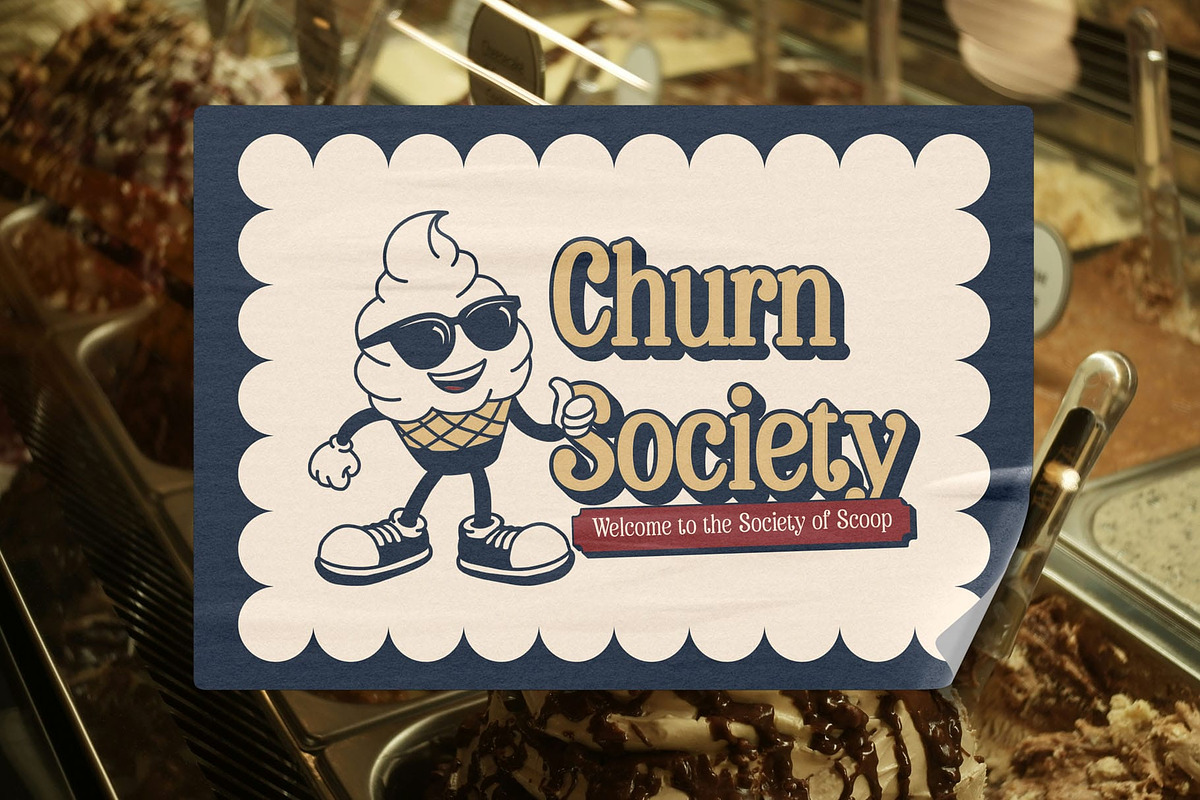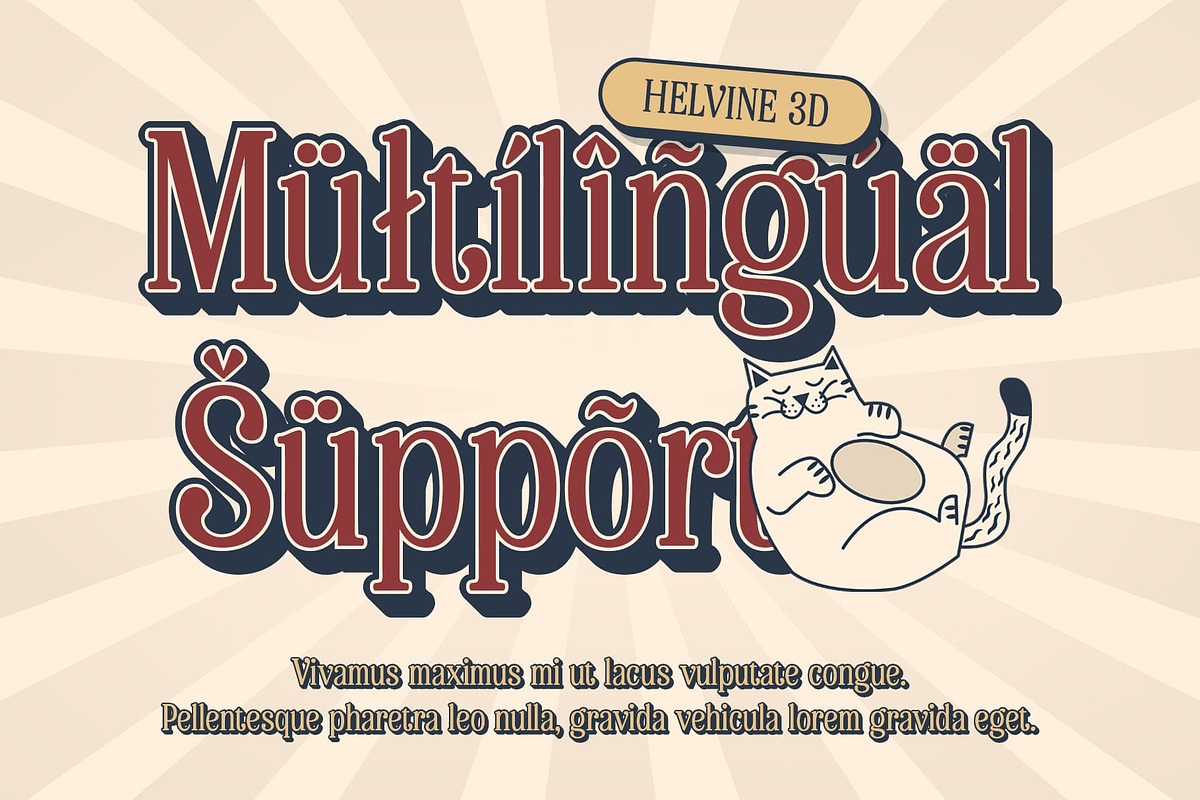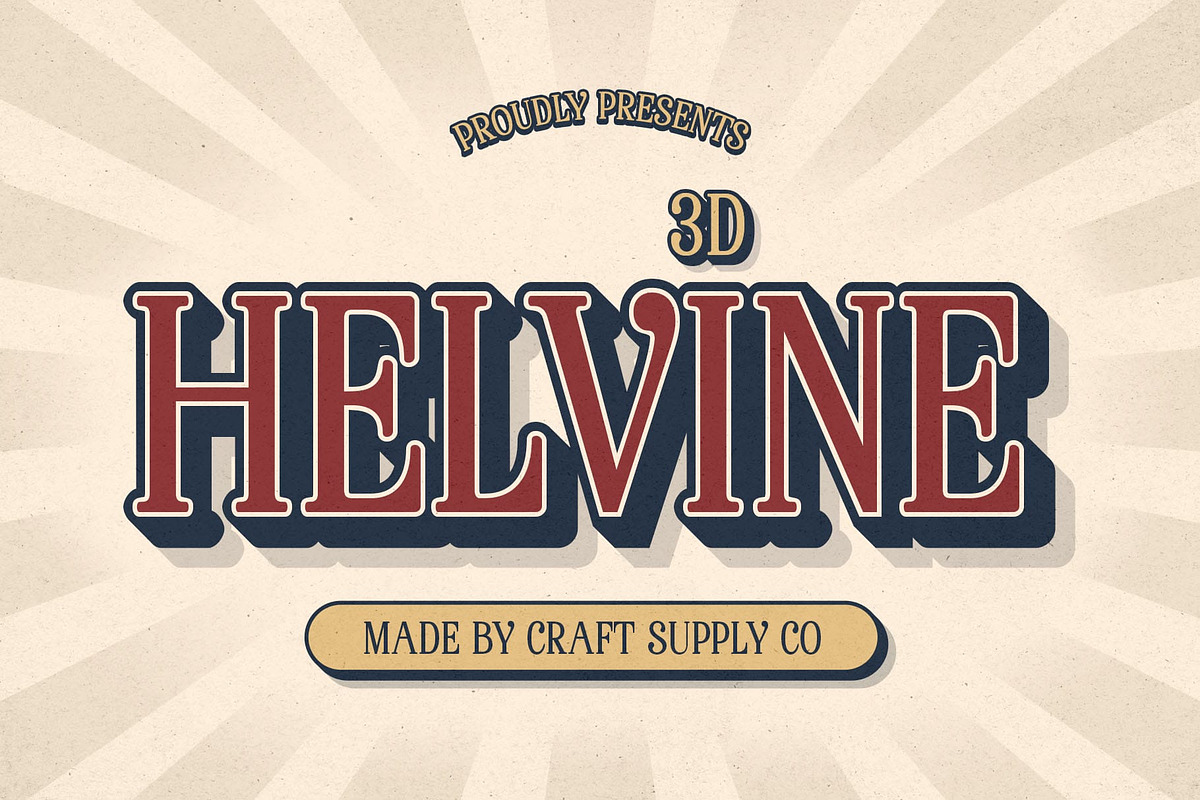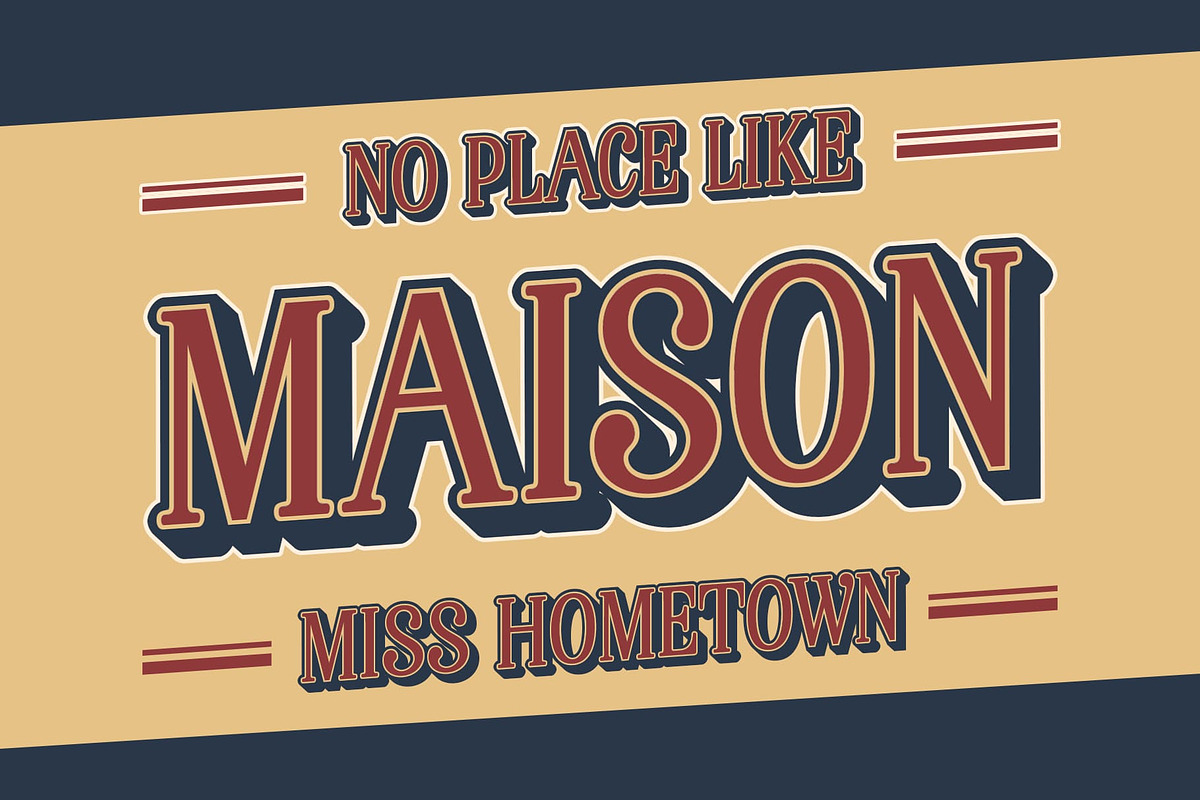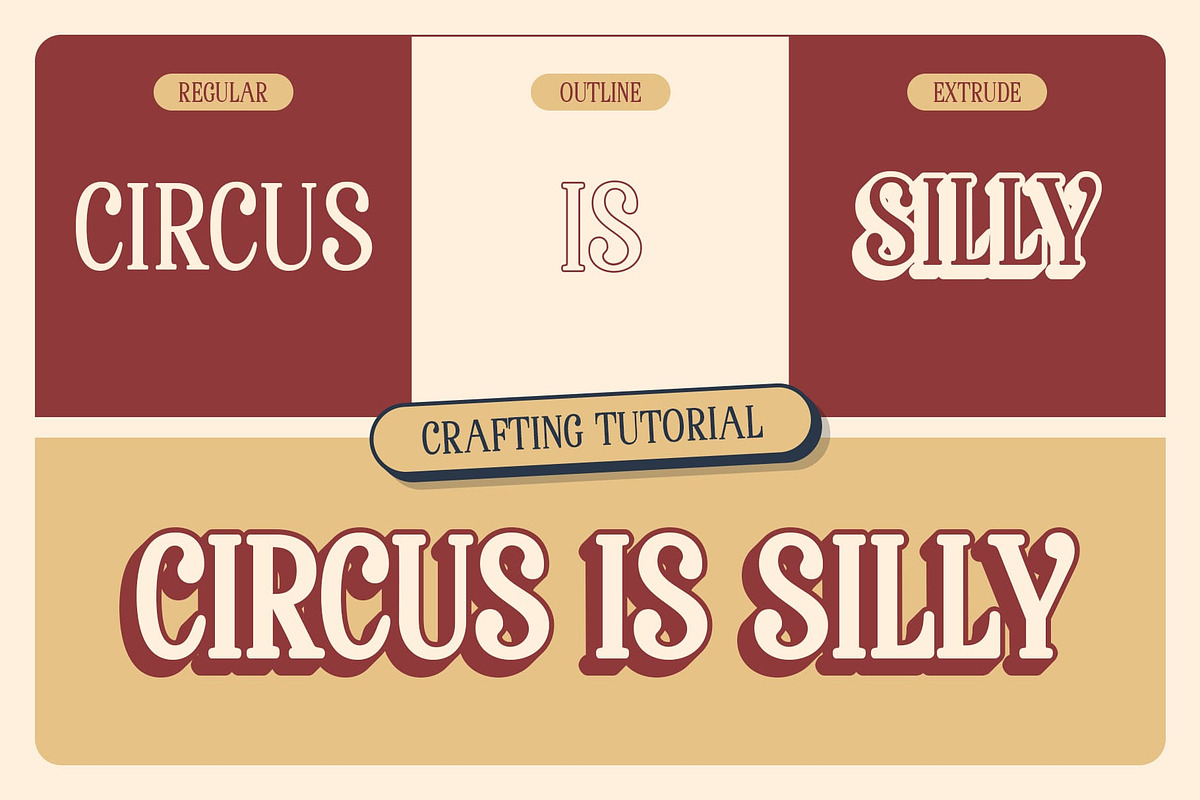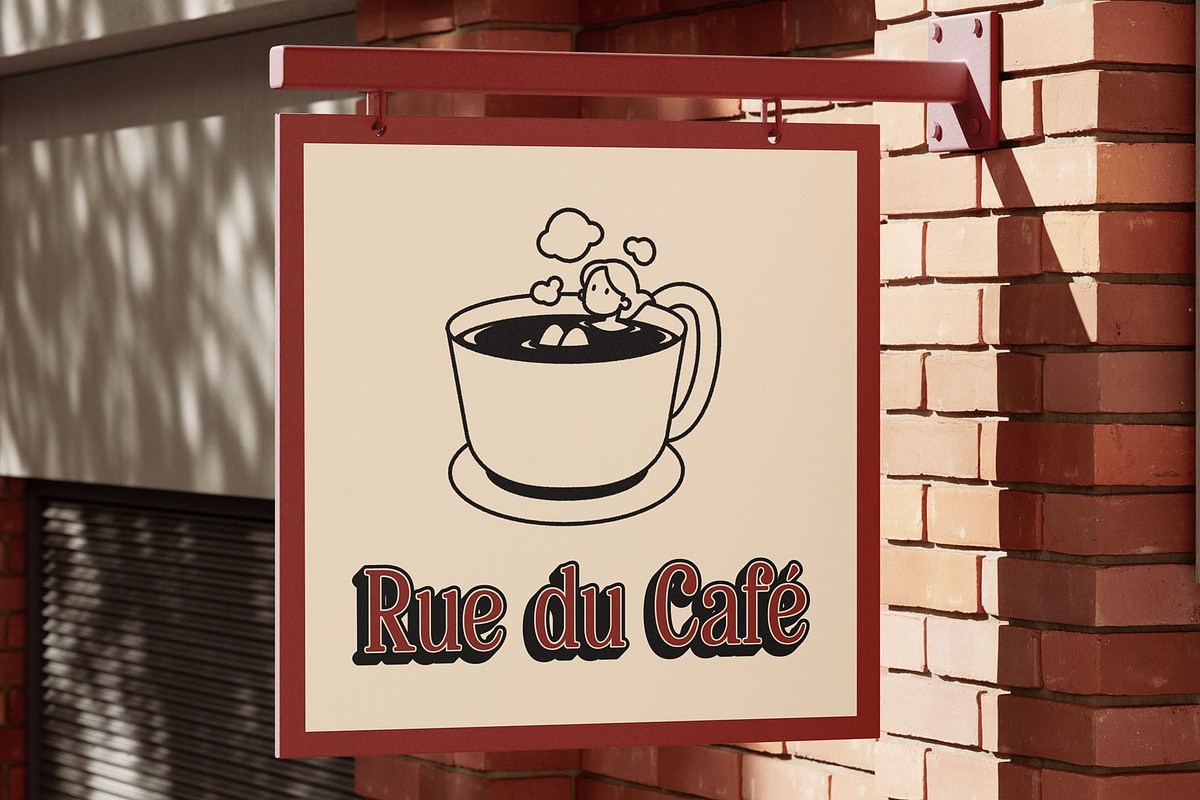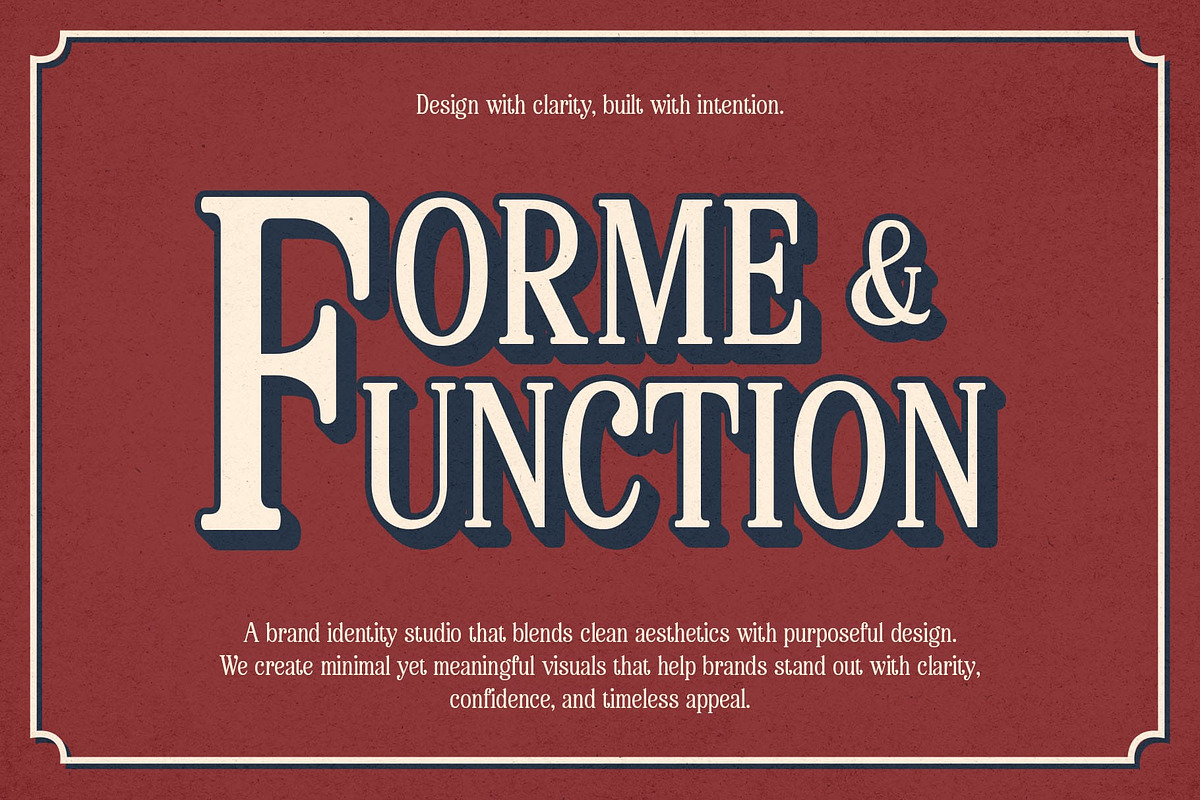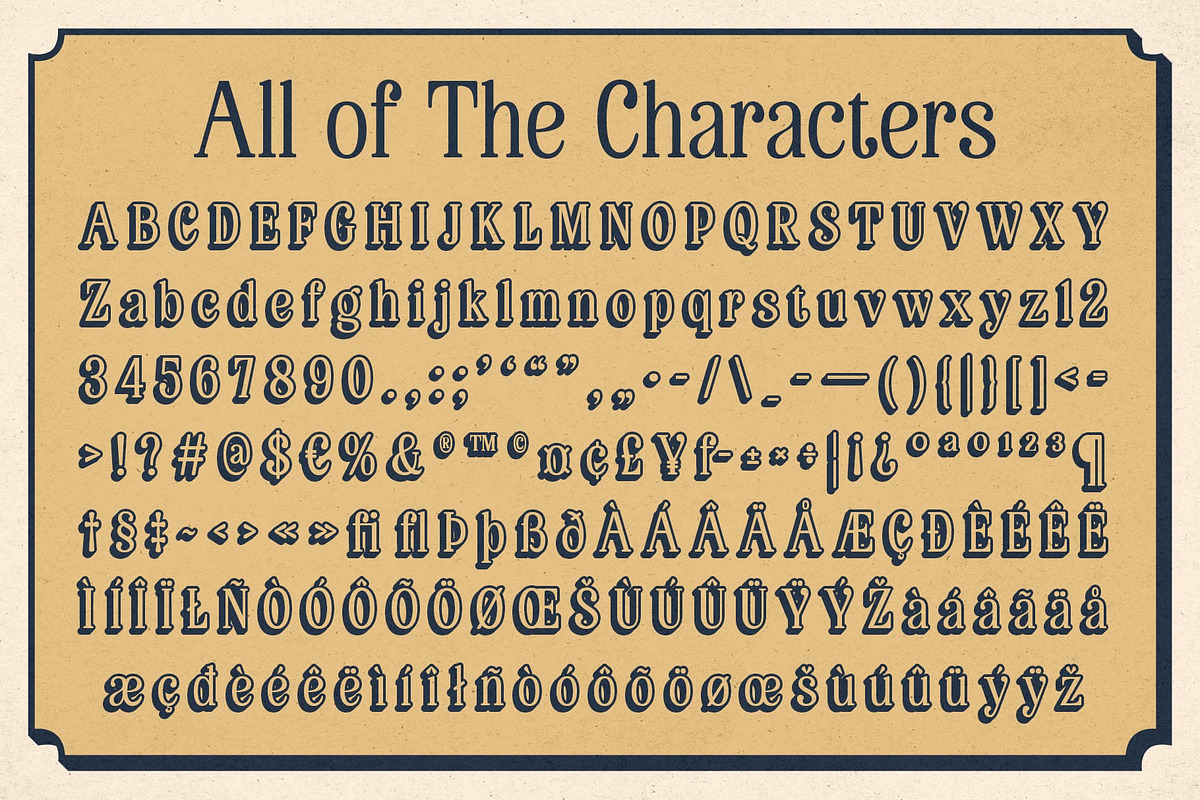
Helvine 3D
Helvine 3D Font: Timeless Elegance with Depth
Classic Serif with Subtle 3D Effect Helvine 3D is a classic serif font that exudes timeless elegance, enhanced by a delicate 3D effect. The graceful, refined letterforms are designed to evoke sophistication and charm, making it an ideal choice for high-end branding, luxury editorial projects, and other refined visual designs
Timeless Sophistication with Modern Flair With its classic serif style, Helvine 3D combines the elegance of tradition with a modern twist. The addition of the 3D effect adds depth, giving the font a unique visual presence without detracting from its refined and timeless appeal. Perfect for projects that require a sense of luxury and sophistication.
Subtle 3D Effect for Added Dimension The gentle 3D effect in Helvine 3D introduces depth and texture, providing an artistic, dimensional quality while preserving the font’s elegant simplicity. This subtle enhancement makes it ideal for designs that demand both visual interest and clarity, without overwhelming the overall aesthetic.
Versatile for Refined Design Projects Helvine 3D is versatile and well-suited for a range of upscale design applications, including premium branding, high-end editorial layouts, and refined promotional materials. Its classic serif style, paired with the delicate 3D effect, ensures it works seamlessly in projects that require both elegance and impactful visual design.